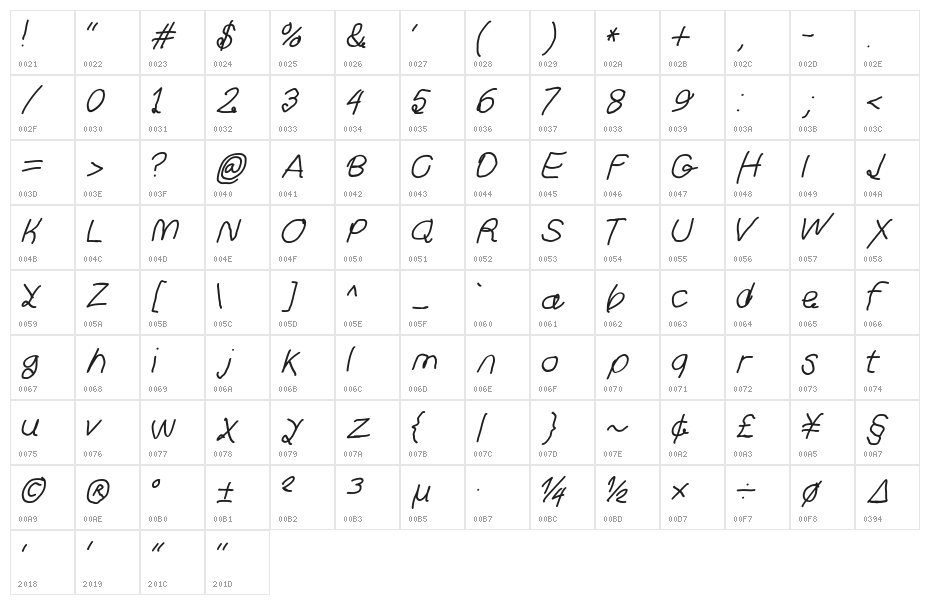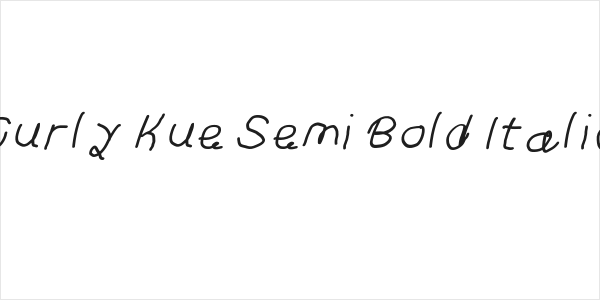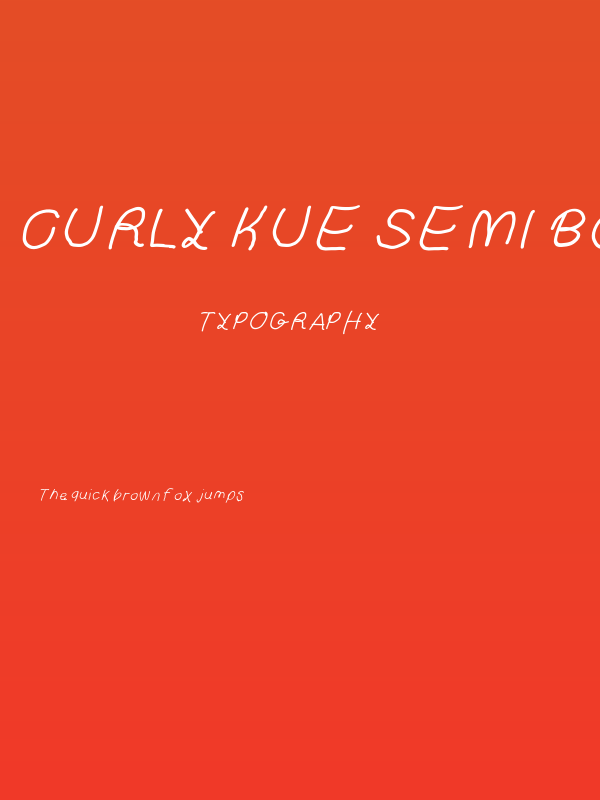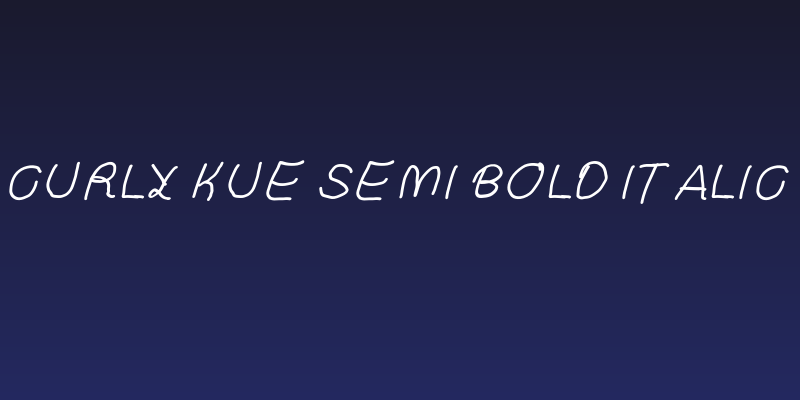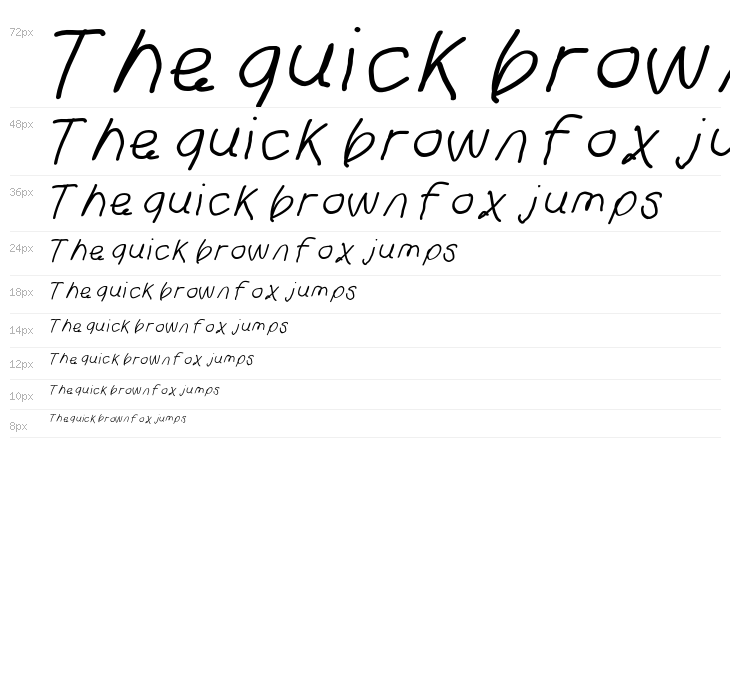
Curly Kue Semi Bold Italic Font
Curly Kue Semi Bold Italic Description
This font features a playful and whimsical style with a handwritten appearance. The letters are slightly slanted, adding a dynamic and informal feel. The strokes are smooth and fluid, with a consistent semi-bold weight that gives the text a lively and engaging look. The characters are well-spaced, ensuring readability while maintaining the font's casual charm. The numerals and special characters are designed to match the overall aesthetic, making it versatile for various creative applications.
| Proposed Projects | Ideal for greeting cards, children's books, playful branding, and creative invitations. |